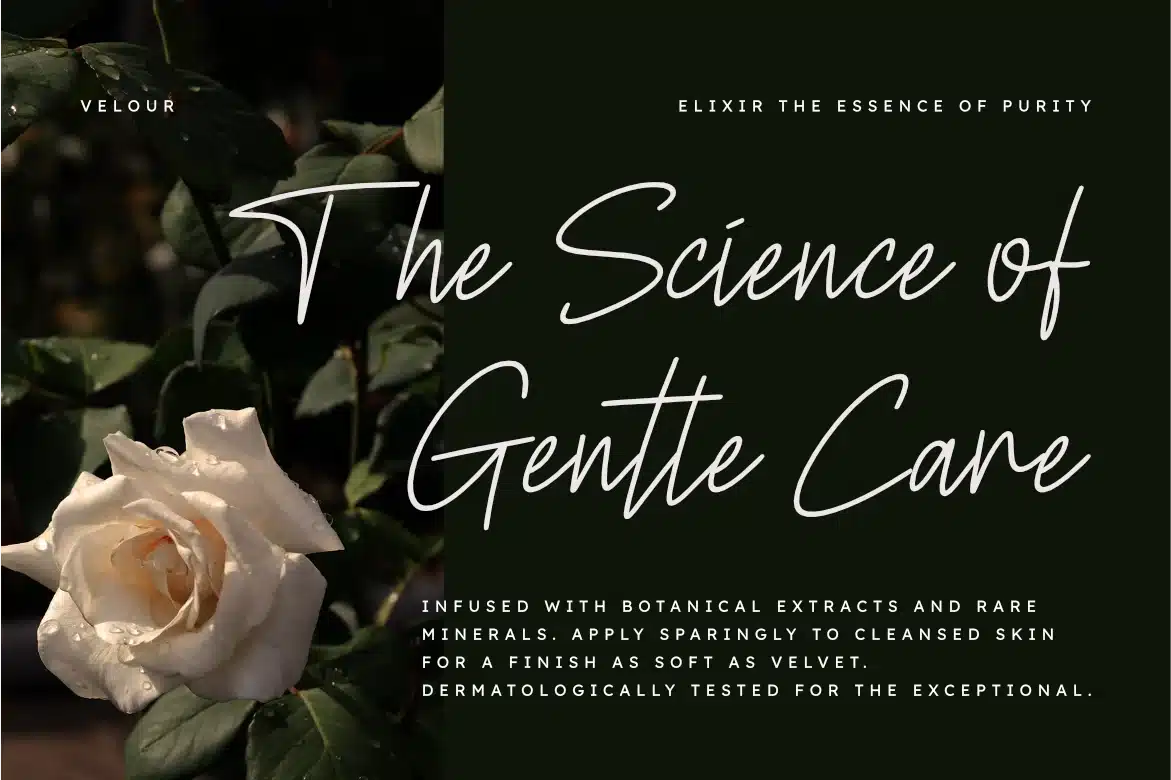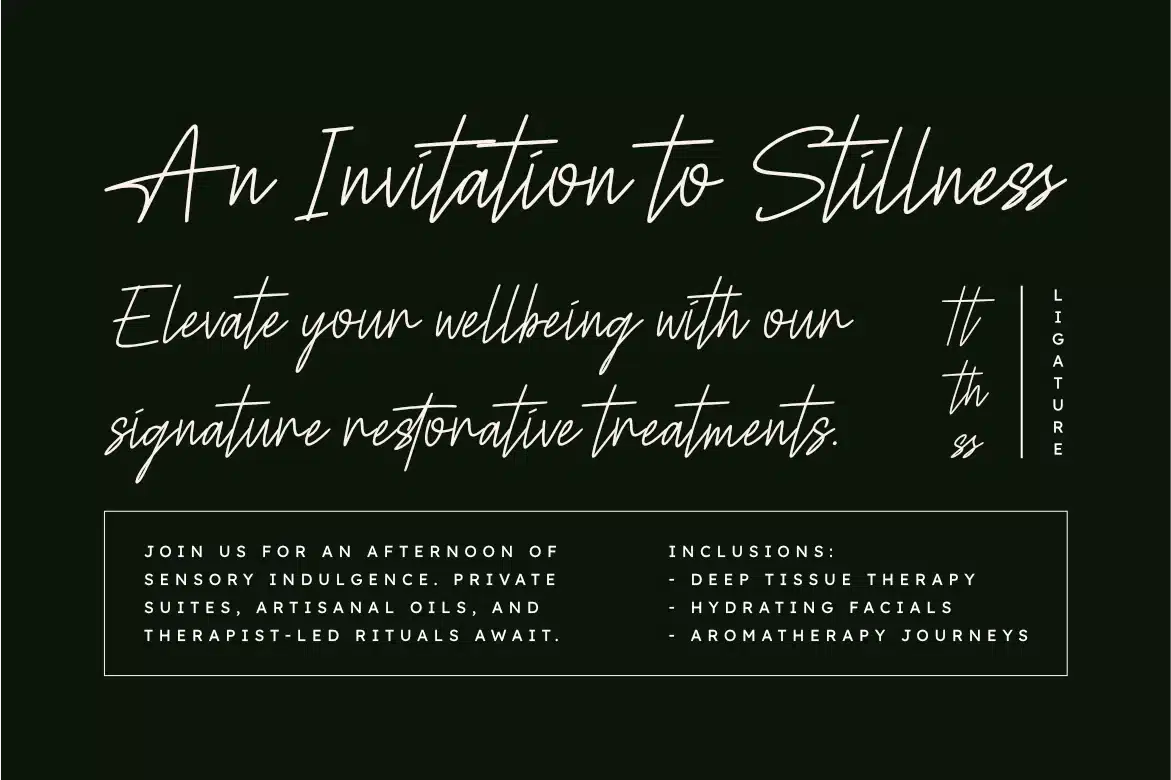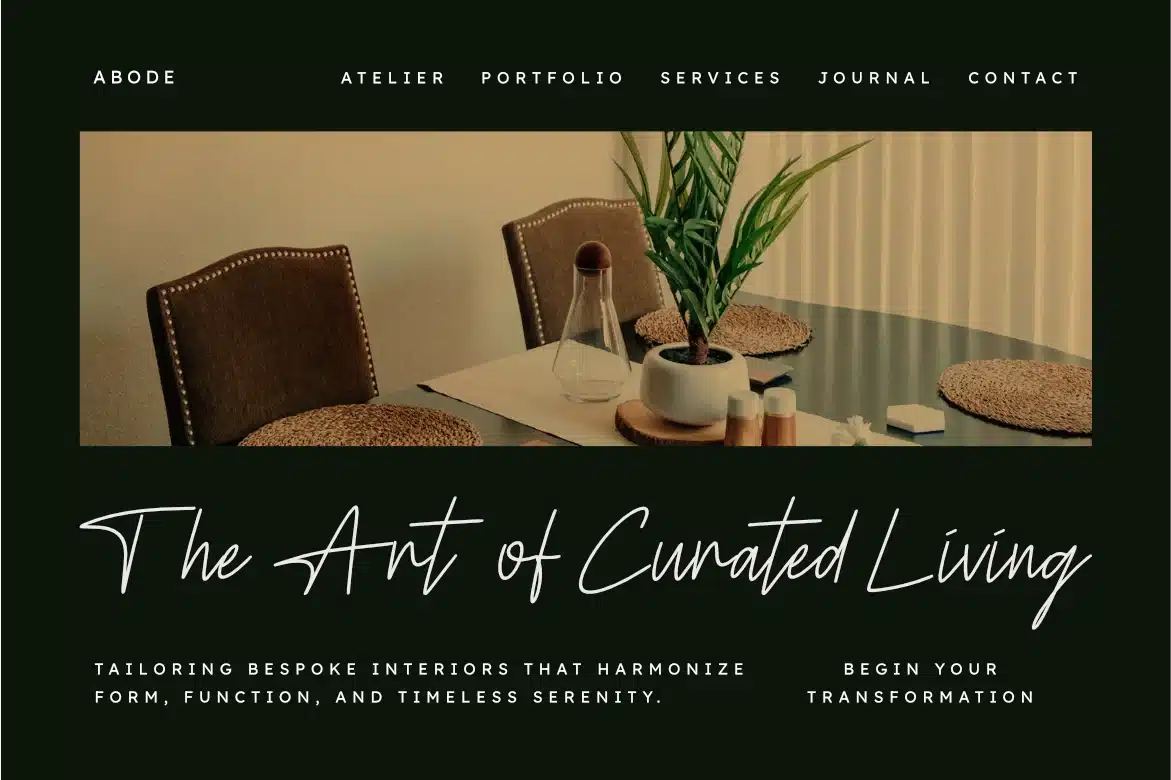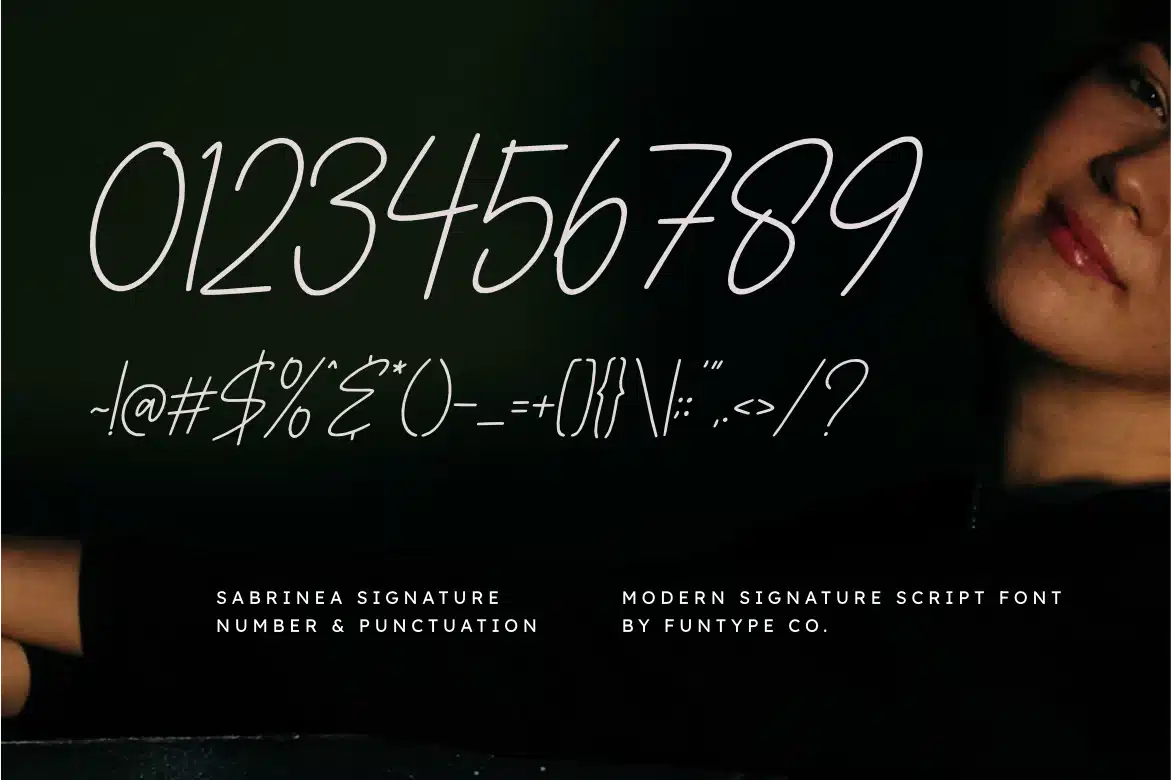
Sabrinea Signature – Modern Signature Script Font
Sabrinea Signature is a sophisticated and clean modern signature script font, thoughtfully designed to capture the essence of contemporary elegance and intimate storytelling. With its consistent monoline weight and natural, flowing strokes, Sabrinea Signature offers a bespoke aesthetic that brings a touch of effortless grace to any creative project.
This font is the ideal choice for designers looking to add a professional yet heartfelt touch to their work. Whether you are crafting delicate wedding stationery, a chic lifestyle logo, or elegant editorial layouts, Sabrinea Signature provides a seamless blend of contemporary flair and timeless simplicity.
Main Features:
- Clean and Modern Script Design: Optimized for a high-end, professional look.
- Natural Signature Aesthetic: Smooth and consistent flow for an authentic feel.
- Refined Letterforms: Meticulously crafted for high legibility in branding.
- Perfect for Photography & Branding: Adds an authentic signature touch to watermarks.
Best Used For:
Wedding invitations, photography watermarks, luxury boutique logos, elegant social media quotes, lifestyle magazine headers, and sophisticated product packaging.